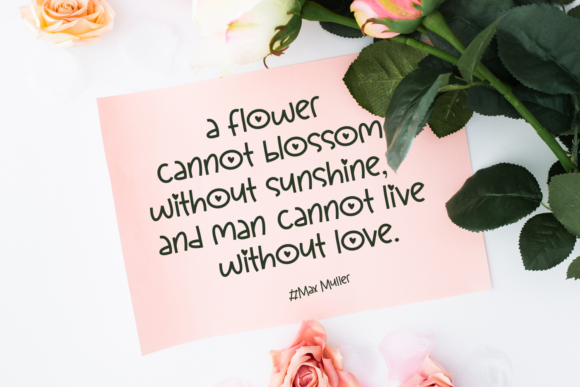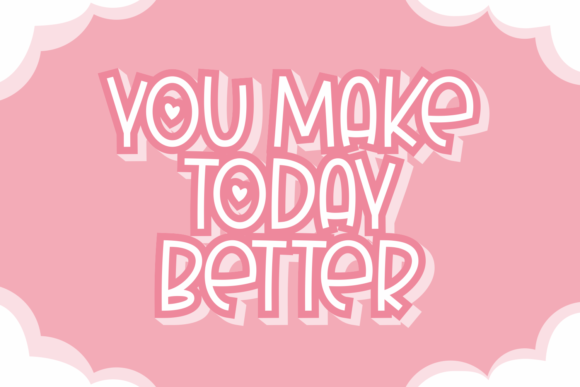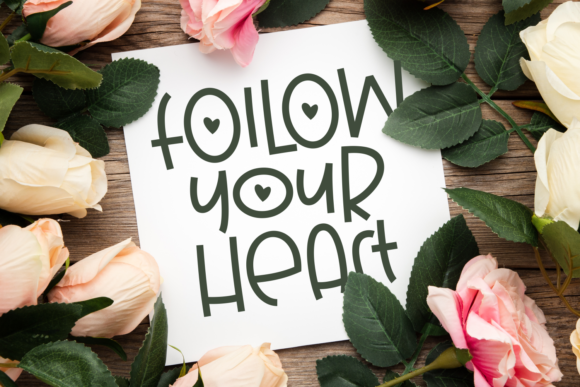
Introduction to Loply Font
As a designer, have you ever been stuck on a creative project, searching for that perfect font to bring your idea to life? You know, that moment when you’re scrolling through design resources, and suddenly, a font catches your eye, and you can’t wait to see what it can do? For me, that moment happened when I stumbled upon the Loply Font.
This fun, joyful, and quirky display font is a game-changer for designers looking to create high-quality, eye-catching designs, especially for children-themed projects. With its transparent background and versatility, the Loply Font is a valuable addition to any design arsenal. Whether you’re working on a creative project or just need a unique design element, this font is sure to bring a smile to your face and a touch of whimsy to your work.
Key Features of Loply Font
- High-quality font with a transparent background, perfect for creative projects that require a clean and modern design.
- Unique characteristic: Loply Font features a custom-designed sans-serif font with a distinctive and modern aesthetic.
- Perfect for use in digital design, including websites, social media, and mobile applications, thanks to its high-quality and scalable design.
Honest Review: Loply Font
I recently stumbled upon the Loply Font and was impressed by its potential as a design resource. The font is available for free download, which is a big plus for designers on a budget. The quality is high, and it works well for various creative projects, from digital art to print materials.
Here are some things that work well for the Loply Font:
- Transparency: The font allows for a transparent background, making it easy to blend with other design elements.
- Customization: The font is highly customizable, allowing designers to adjust its style to suit their needs.
- Limited character set: The font’s character set is limited, which may not be suitable for complex design projects.
- No bold or italic variations: The font only comes in regular weight, which may not be ideal for headings or emphasis.
Overall, I think the Loply Font is a great addition to any designer’s toolkit. While it may have some limitations, its high quality and versatility make it a valuable resource for creative projects.
Tips for Getting the Most Out of Loply Font
Use the Loply Font on a transparent background to create a seamless design. Experiment with different font sizes and colors to add visual interest to your project. The Loply Font is a free download, making it an excellent design resource for creative projects.
The Loply Font is ideal for a variety of creative projects, including social media graphics, presentations, reports, and business documents. Its high-quality design makes it a great choice for any project that requires a professional-looking font.